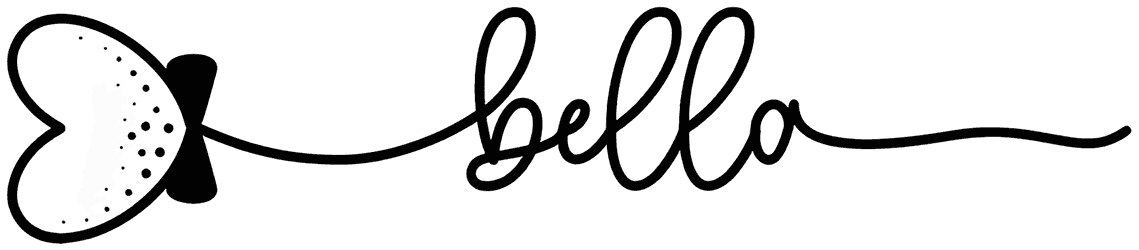
Bella Font
Replace these sweet, natural words and refined kids’ moments with a simple process of adding this heart font and beginning one from scratch. The happy, unreadable lettering gives off friendly vibes around your text, and it’s goofy enough, yet contains just a fun quality to be utilized as an eye-catching element in the child-related design, like animation, comic books, title cards, banners, etc.